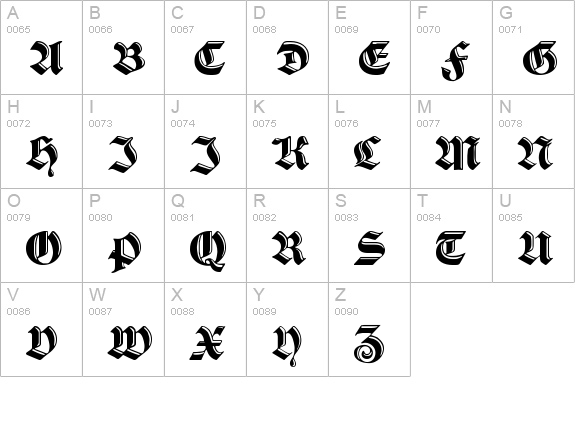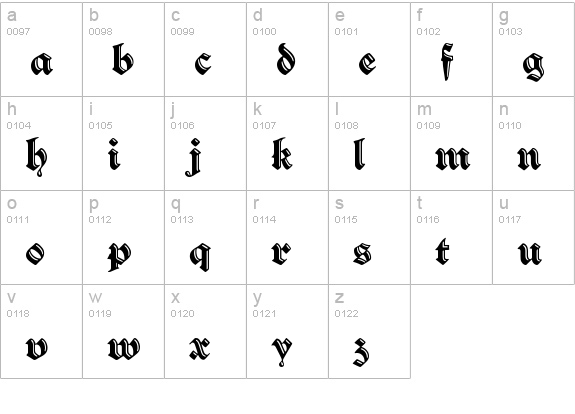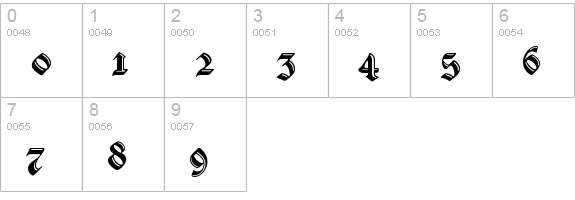
VerzierteSchwabacher Font Details
VerzierteSchwabacher is a stunning font that exudes elegance and sophistication. With its intricate and ornate design, this font is perfect for adding a touch of vintage charm to any project. The flowing curves and delicate details of VerzierteSchwabacher create a sense of timeless beauty that is sure to captivate any audience. What sets VerzierteSchwabacher apart is not only its exquisite design but also its availability as a free font. Yes, you read that right - VerzierteSchwabacher is freely available to download at FontsMarket.com. This means that you can enhance your designs with this enchanting font without having to spend a dime. Whether you're working on a wedding invitation, a logo design, or a vintage-inspired poster, VerzierteSchwabacher is the ideal font to make a lasting impression. Its graceful curves and intricate details will add a touch of sophistication and elegance to any project. So why wait? Head over to FontsMarket.com and download VerzierteSchwabacher for free today. Unlock the beauty and charm of this exquisite font and elevate your designs to the next level. Don't miss out on the opportunity to add a touch of vintage flair to your creations with VerzierteSchwabacher - the free font that will make your designs come to life.